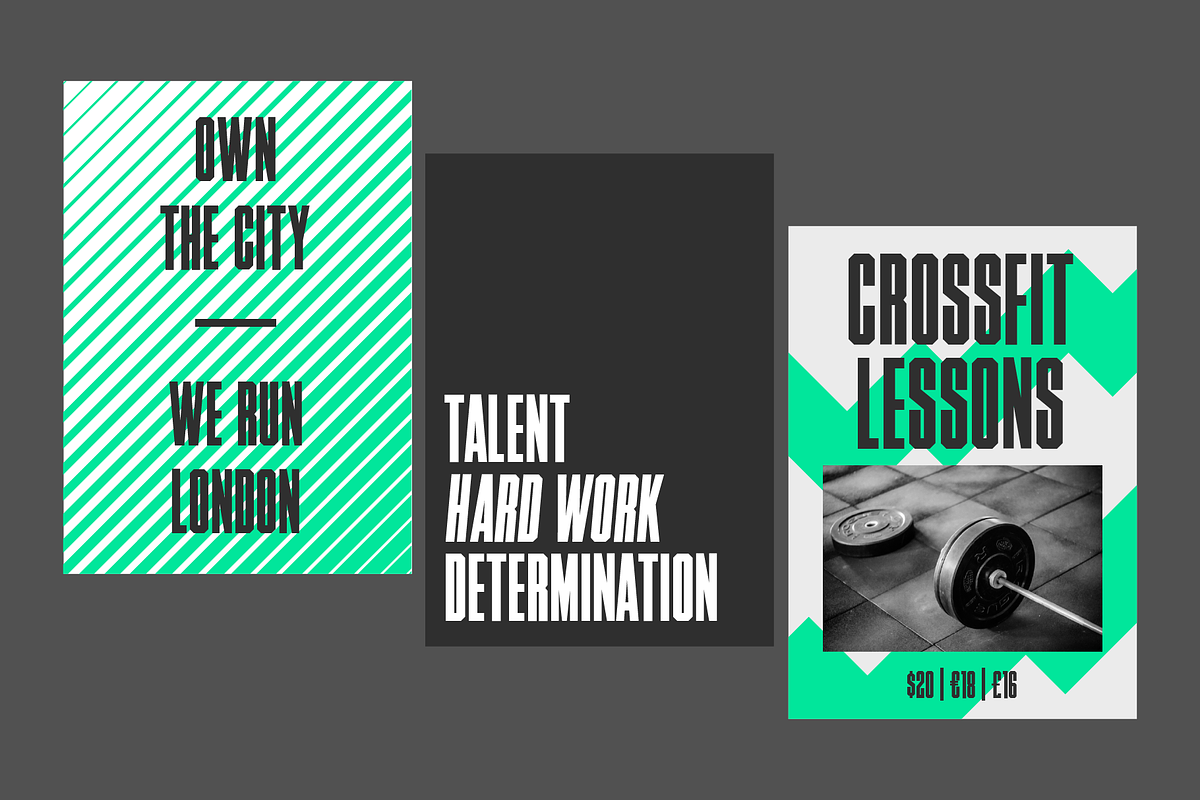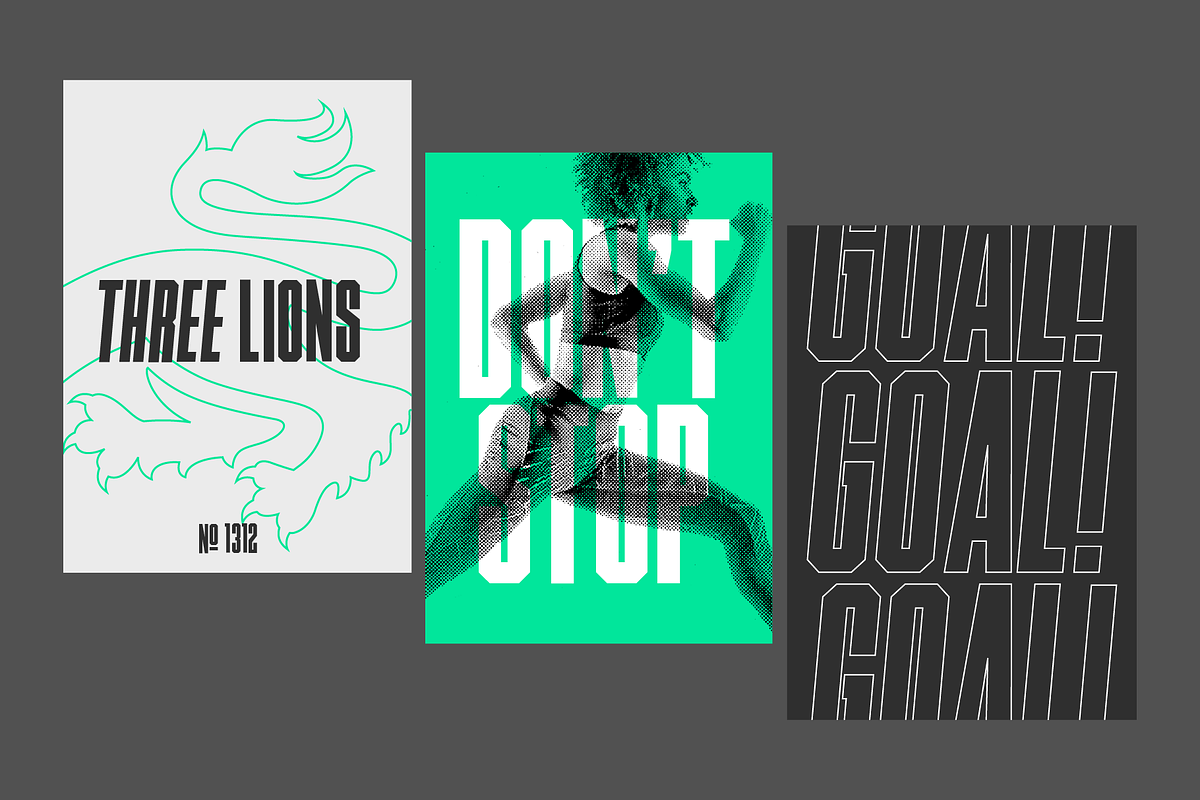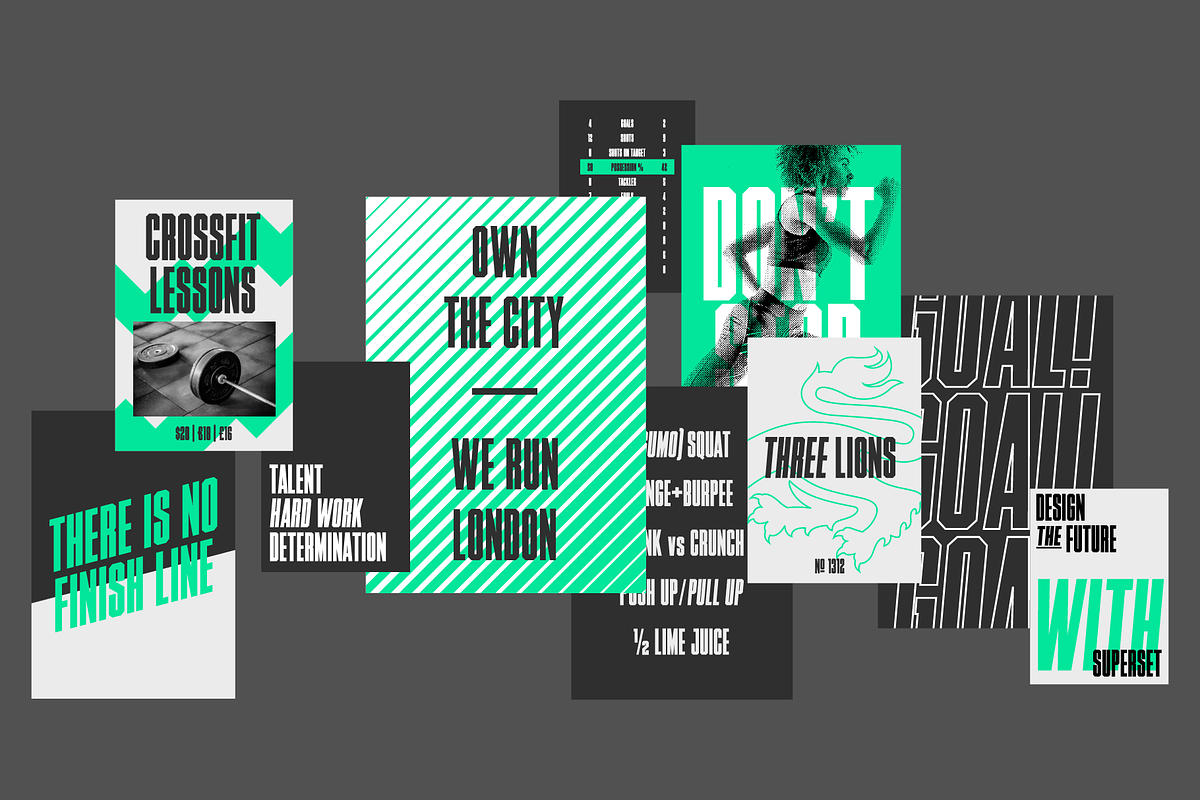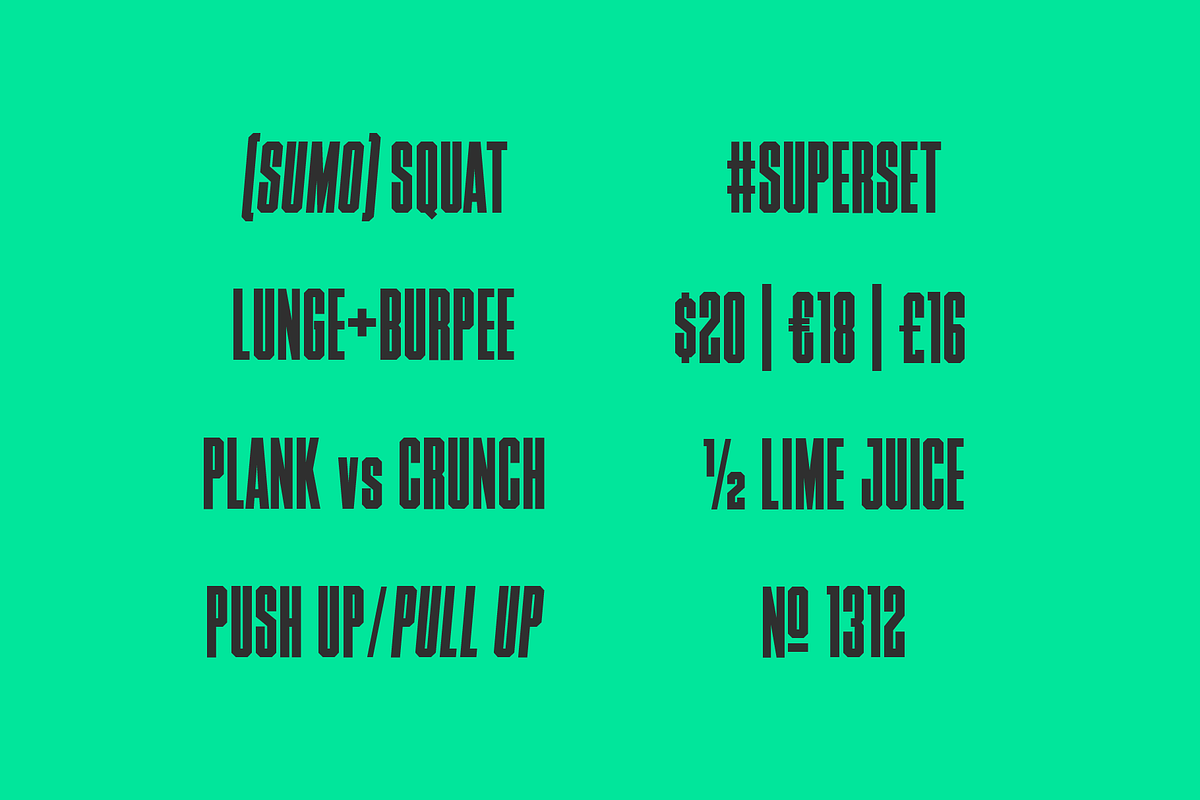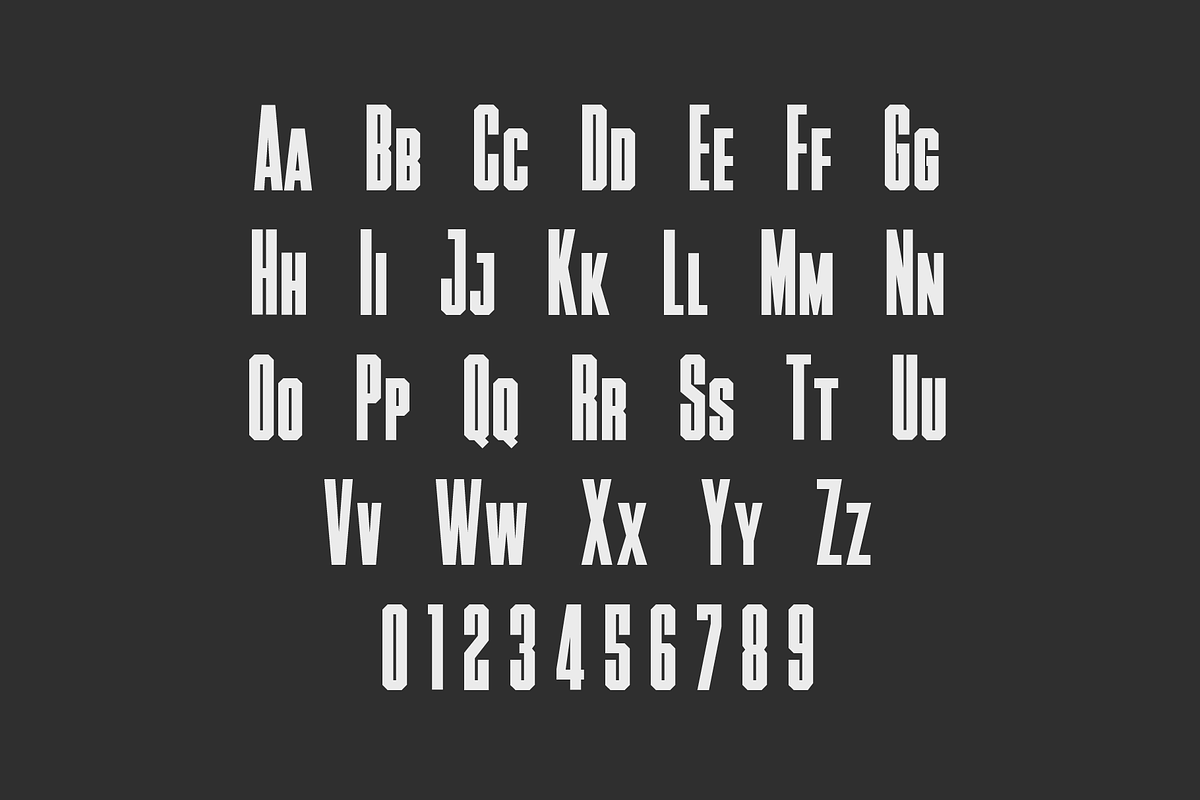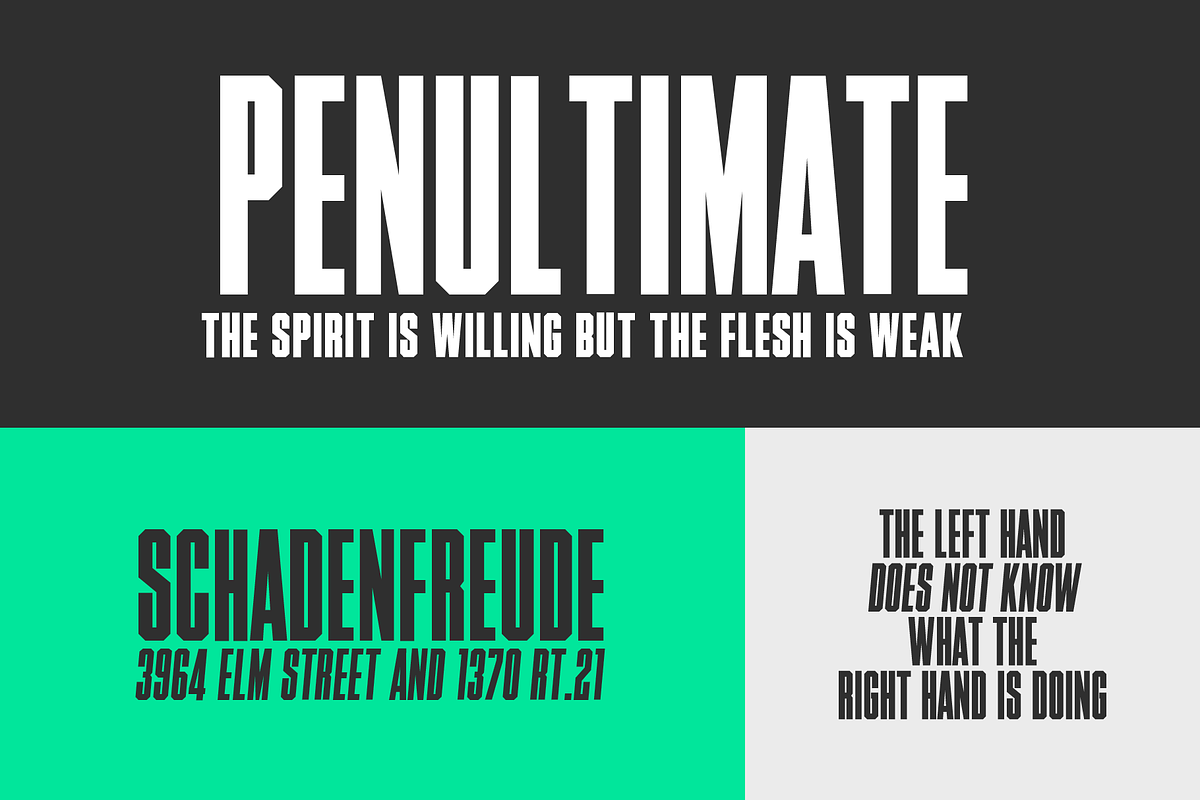
Superset font
Superset, a narrow, display/headline font, can be used to present your ideas in sport/fitness or editorial, in advertisements and large headlines. This font is ideal for helping you with presentations creating, gift cards and posters, or social media design. Add some bold uniqueness to your designs!
Superset font by Primo Type Foundry fits naturally into Branding, posters, packaging, typography.